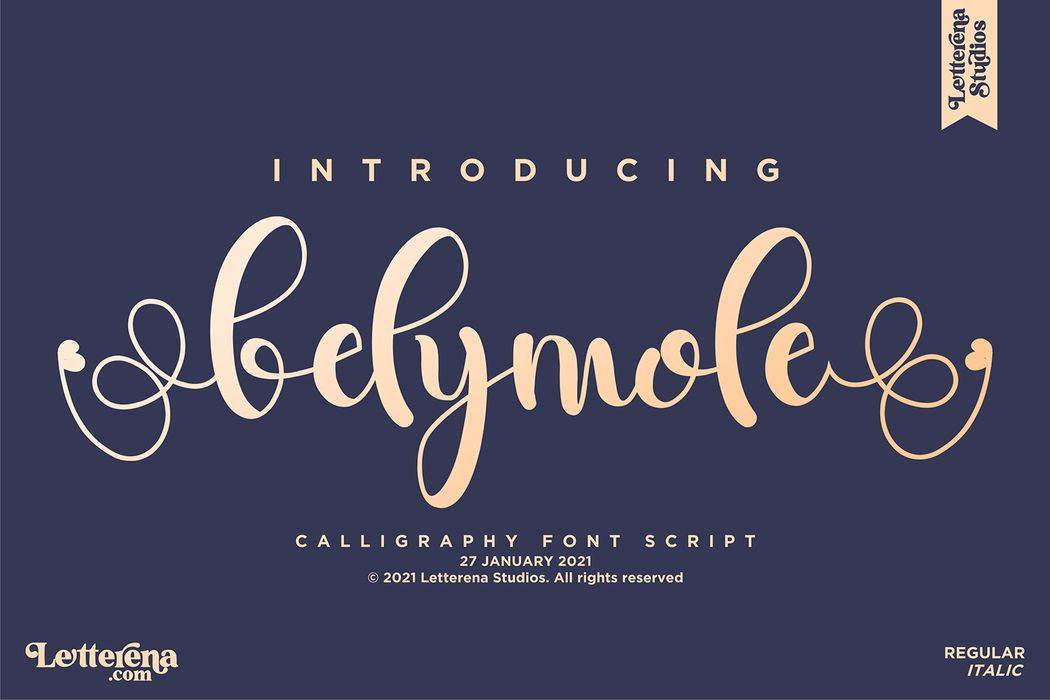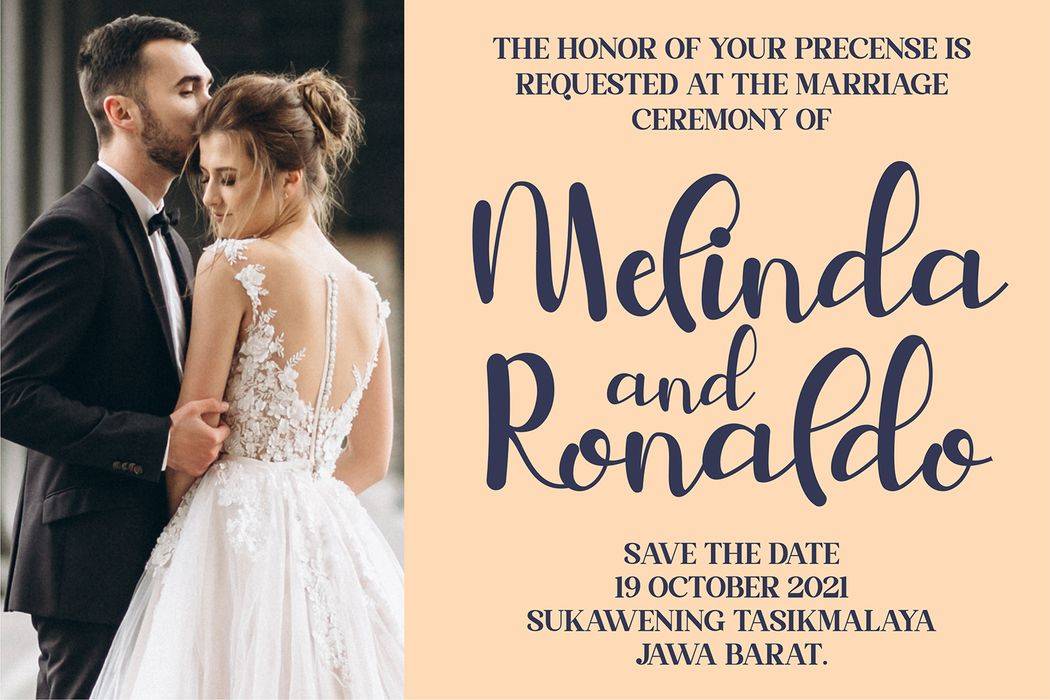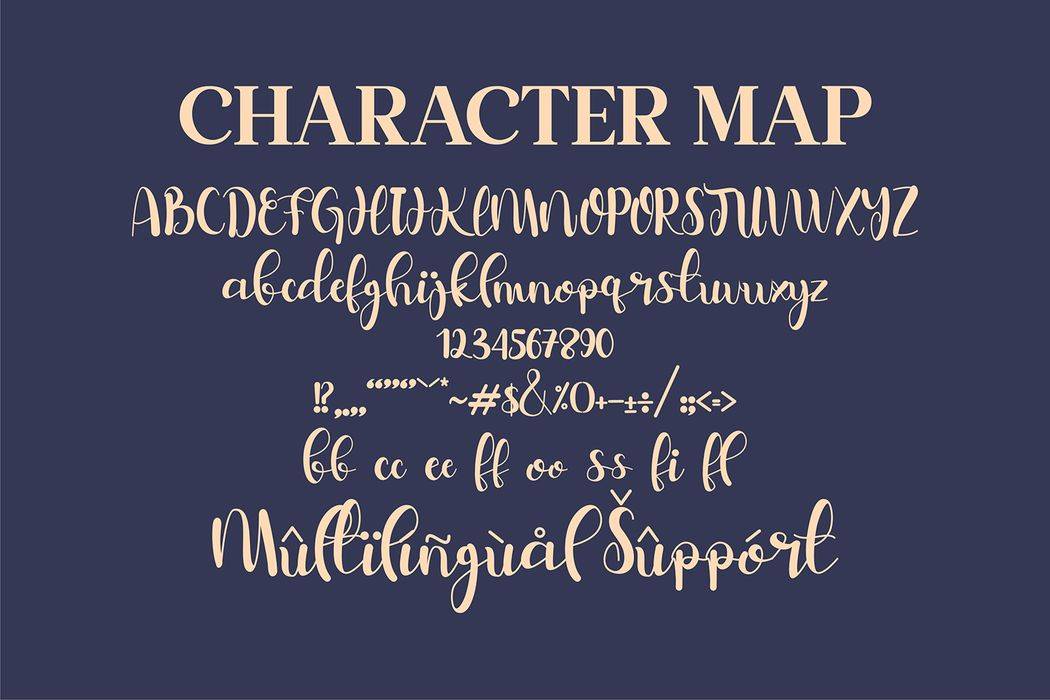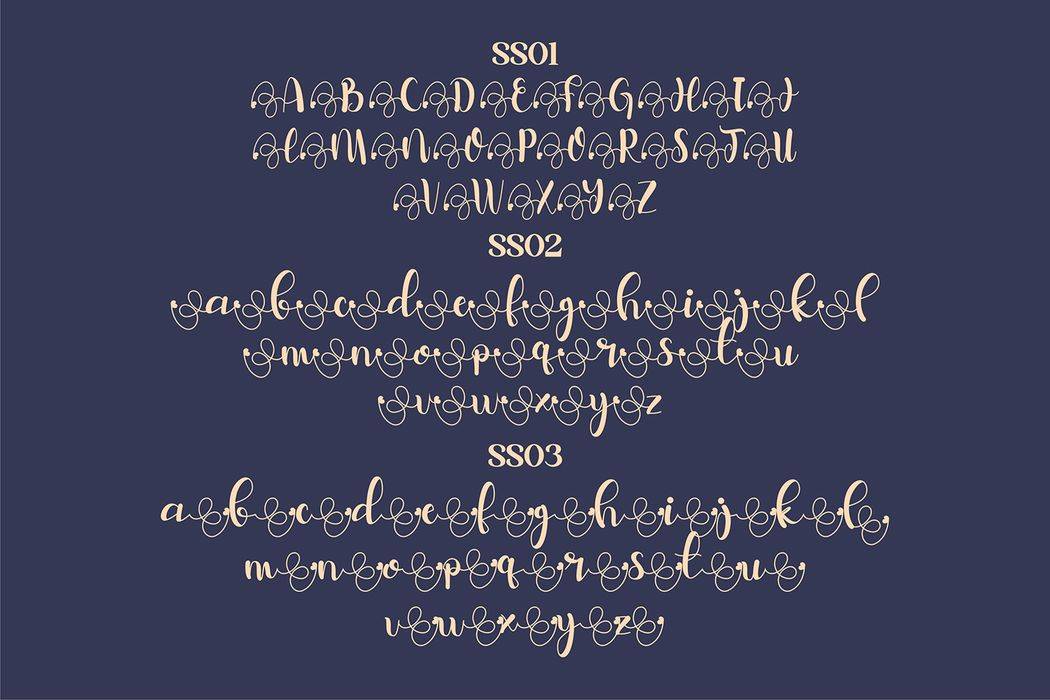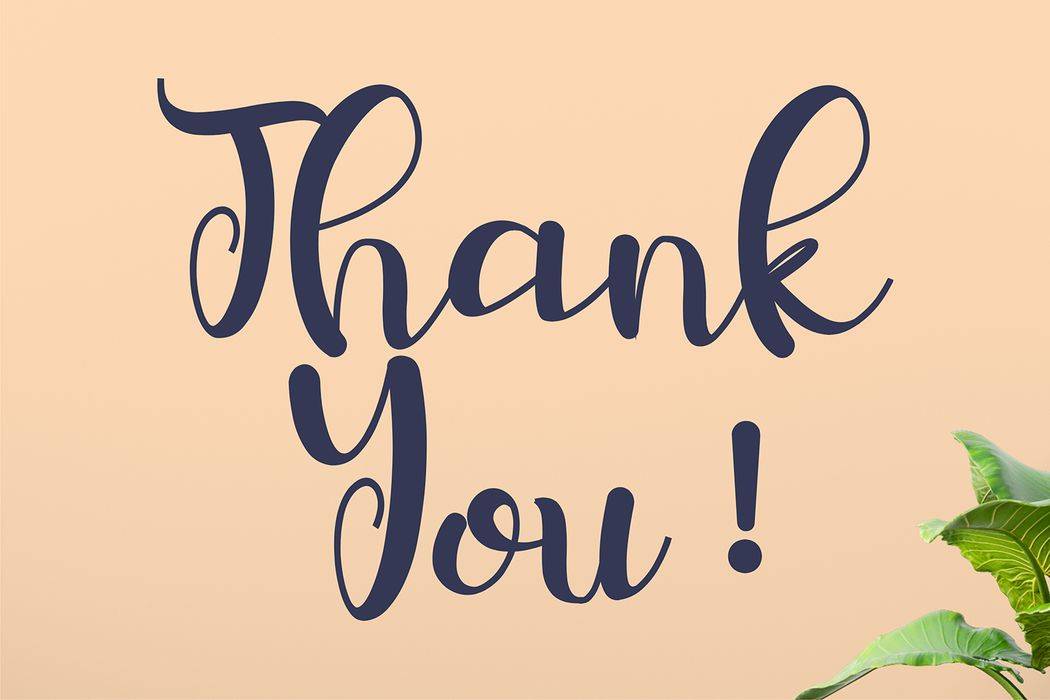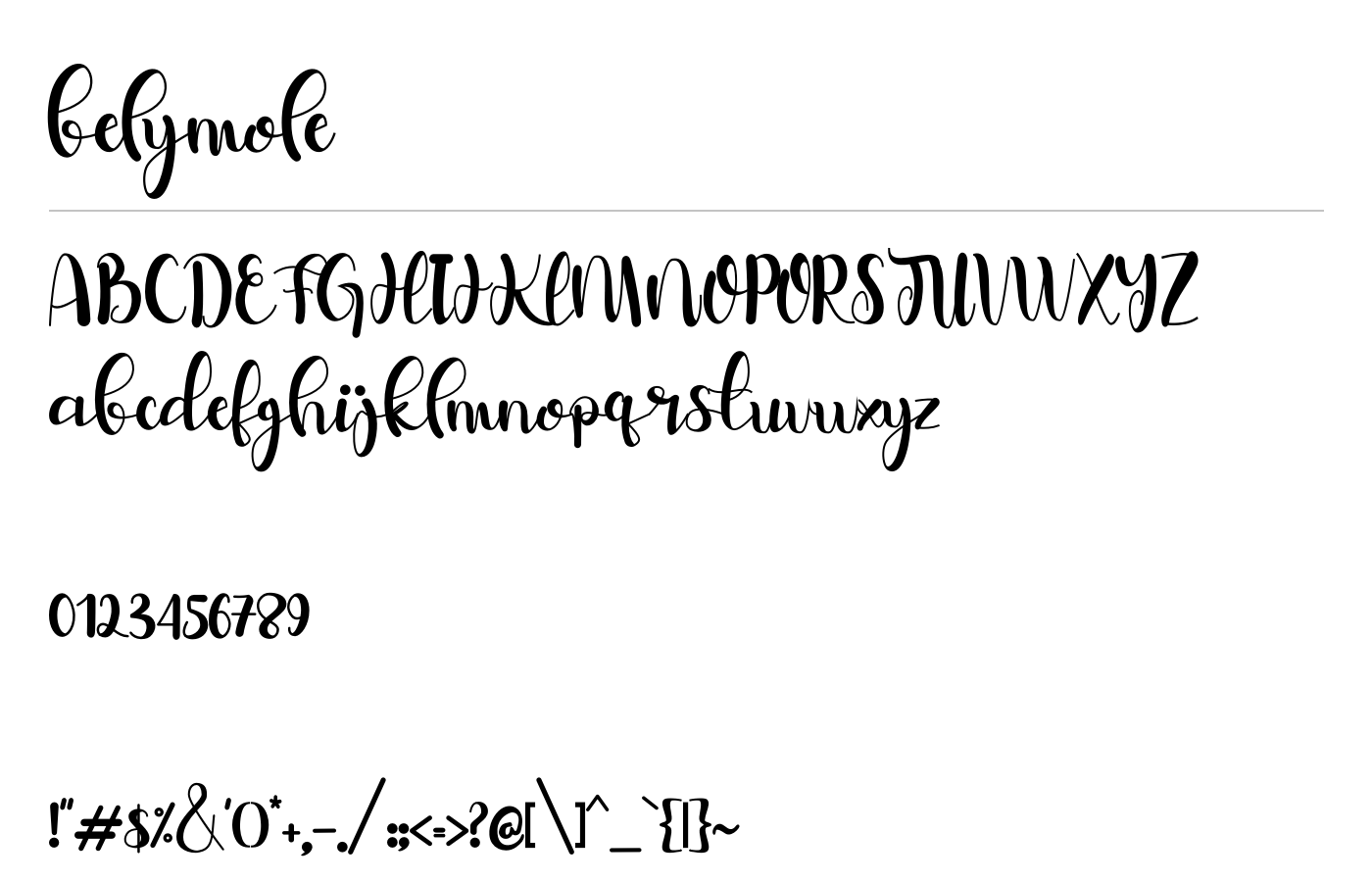
Belymole is a lively, hand-lettered script font with a playful and elegant personality, featuring varied stroke widths and graceful loops. Its casual yet charming style makes it ideal for creative projects like invitations, branding, and social media where a personal, artistic touch is desired. The font’s unique, flowing letterforms add warmth and character, perfect for conveying friendliness and creativity.
Belymole Font
About Belymole Font
| Font family | Belymole Font |